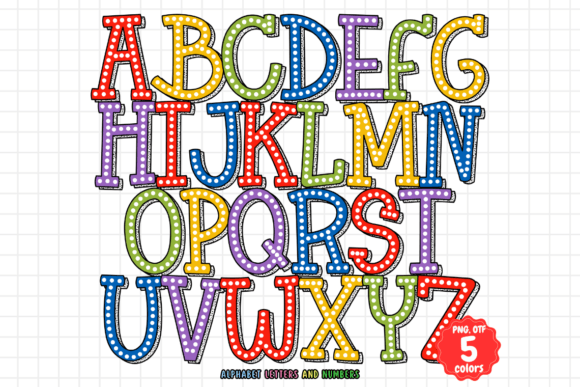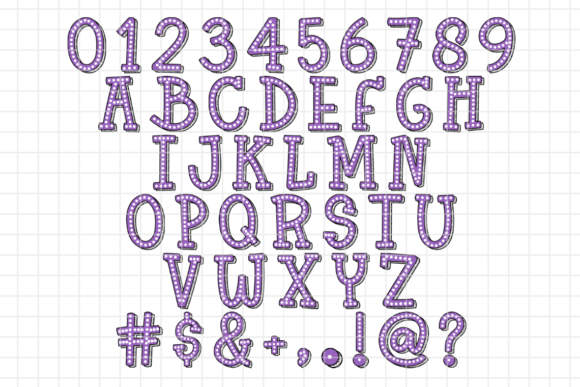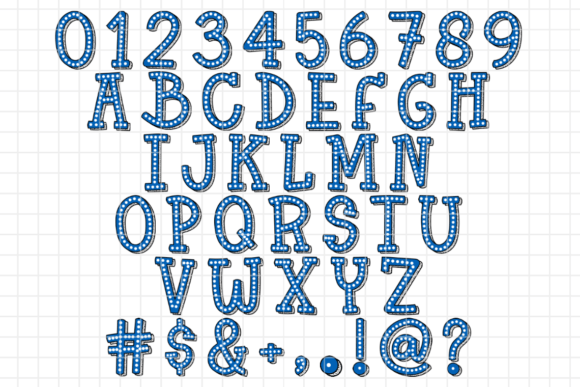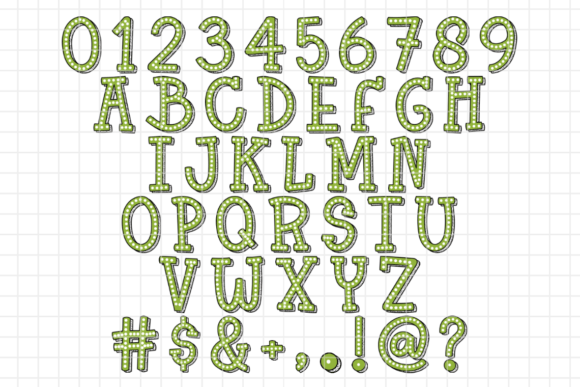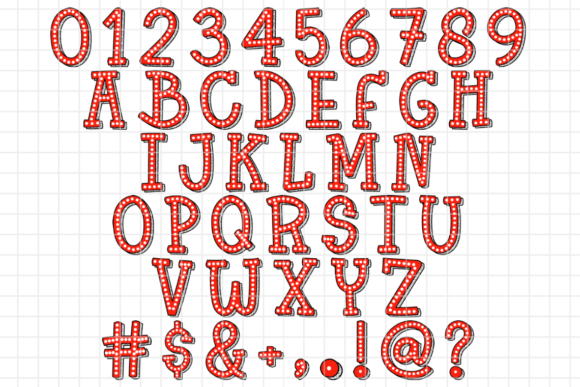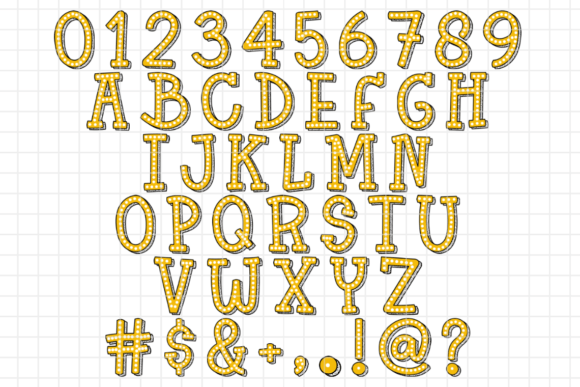
Introduction to Rainbow Marquee Font
Rainbow Marquee font is a bold and vibrant handwritten font that brings the dazzling appeal of marquee lights to your projects.
Perfect for school materials, creative art, holiday designs, and graphic projects, this font adds a touch of excitement and energy to any work With its eye-catching, multicolored letters, Rainbow Marquee is ideal for making headlines, posters, banners, and other standout pieces that need attention.